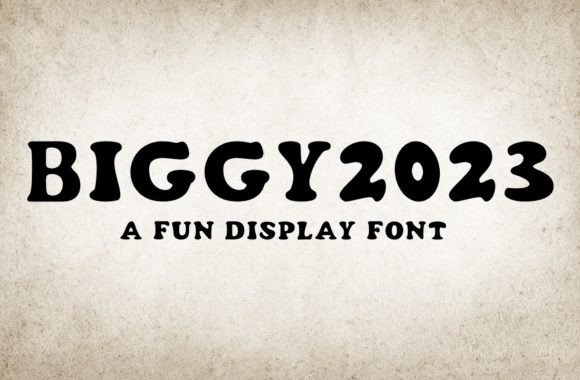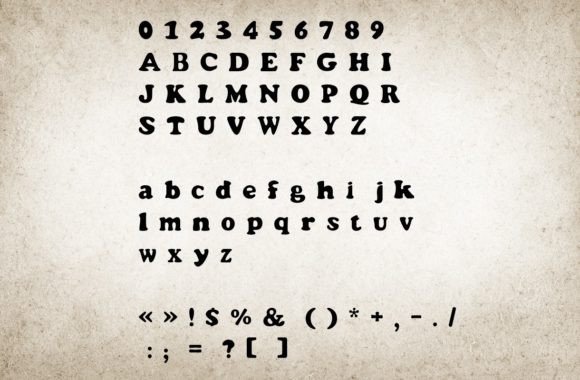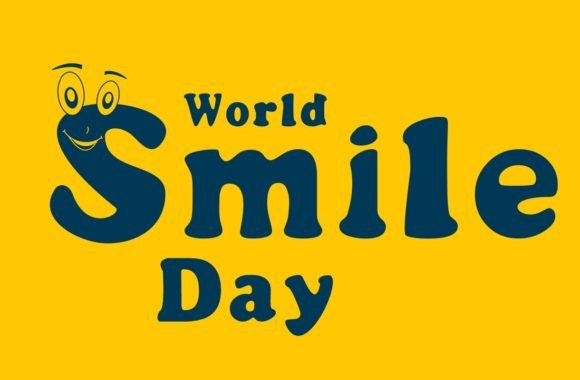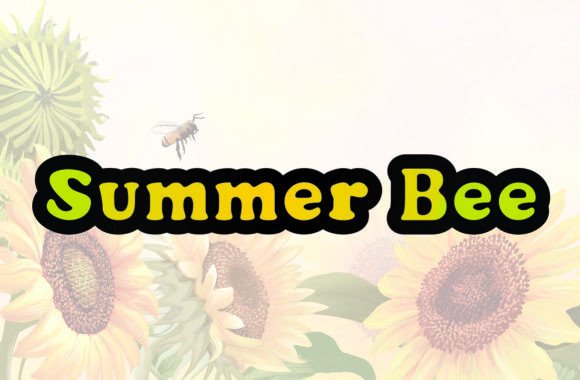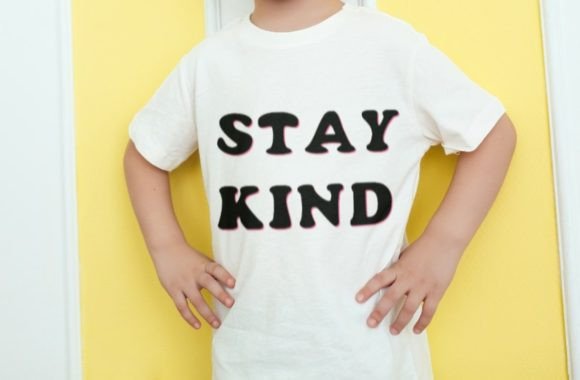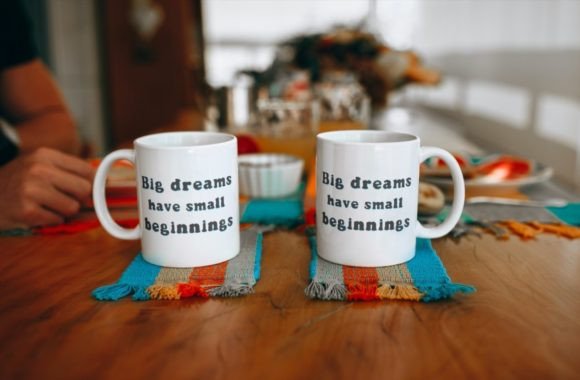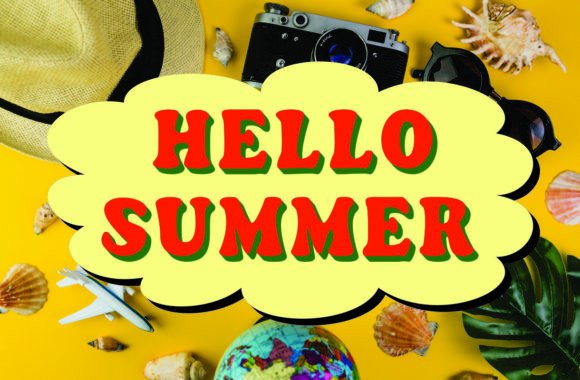
Introducing Biggy2023 Font: Elevate Your Designs with Elegance
In the world of design, fonts play a pivotal role in conveying messages, evoking emotions, and creating lasting impressions. Among the myriad of fonts available, Biggy2023 stands out as a stunning display font that can transform your projects with its elegance and versatility. Whether you’re working on branding, invitations, stationery, wedding designs, social media posts, logos, or more, Biggy2023 is the perfect companion to bring your creative visions to life.
The Beauty of Biggy2023
Biggy2023 is not just any font; it’s a beautiful display font crafted to make your designs pop. Its unique style and aesthetic appeal make it an excellent choice for designers and crafters looking to add a touch of sophistication and modernity to their work. The font’s design ensures that your projects stand out, capturing the attention of your audience and leaving a memorable impact.
One of the key advantages of Biggy2023 is its incredible versatility. This font can be seamlessly integrated into a wide range of projects across various topics and industries. Here are some of the areas where Biggy2023 can make a significant difference:
- Branding: Establish your brand’s identity with a font that exudes professionalism and style.
- Invitations: Create stunning invitations for events, parties, or formal gatherings that set the tone for your occasion.
- Stationery: Elevate your business or personal stationery with a font that adds a touch of elegance.
- Wedding Designs: Make your wedding designs, such as save-the-date cards, wedding invitations, and more, truly unforgettable.
- Social Media Posts: Stand out on social media platforms with eye-catching posts that grab attention.
- Logo Design: Craft memorable logos for your business or personal brand that reflect your identity.
Why Choose Biggy2023?
- Uniqueness: The font’s unique style ensures that your designs have a distinct look that sets them apart from the rest.
Biggy2023 is more than just a font; it’s a design companion that can elevate your projects to new heights. Its beauty, versatility, and ease of use make it an indispensable tool for designers and crafters. Whether you’re looking to make a statement with your branding, create elegant invitations, or design captivating social media posts, Biggy2023 is the perfect choice. Embrace Biggy2023 in your designs and experience the transformation it brings.